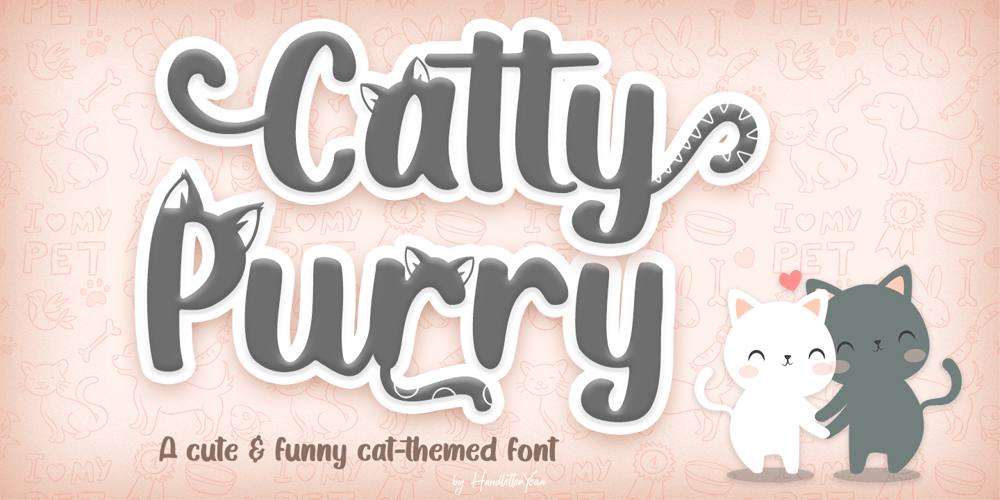
Catty Purry Font Family was designed by Yean Aguste and published by HandletterYean. Catty Purry contains 4 styles and family package options. Catty Purry is a cute and funny cat font. This font is big, bold and unique. The handwriting touch will make your project looks more natural and eye-catching also allow you to create stunning design quickly and easily. Feel free to use this font for logos, handwritten quotes, product packaging, header, poster, merchandise, social media & greeting cards, and more.Check out our font collection for more great and artistic fonts. Pick your most favorite font and use it as you like to reach your goals.To access the alternate glyphs, you need a program that supports Open Type features such as Adobe Illustrator CS, Adobe Photoshop CC, Adobe Indesign, and CorelDraw.More information about how to access alternate glyphs, check out this link ( goo.gl/ZT7PqK )